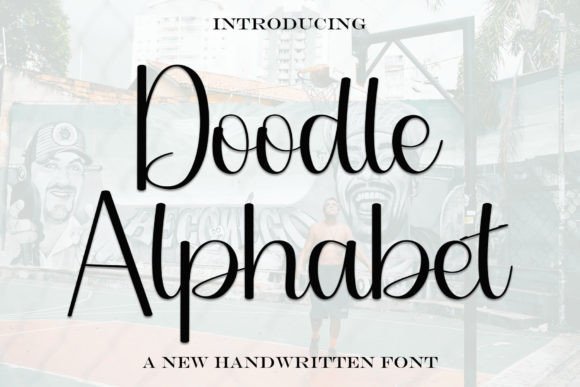
Have you ever stared at a blank page, feeling like your next design project is just out of reach? You’ve got a great idea, but the perfect font to bring it to life is nowhere to be found. Well, search no more! Introducing the Doodle Alphabet Font, a trendy handwritten font that’s sure to elevate your designs and leave a lasting impression.
This beautiful font is inspired by timeless classic calligraphy, with a contemporary twist that’s sure to add a touch of elegance to any project. Whether you’re a seasoned designer or just starting out, the Doodle Alphabet Font is a valuable tool that will help you create stunning visuals that capture the essence of your brand.
Doodle Alphabet Font Key Features
- Unique Hand-Drawn Style: The Doodle Alphabet Font features a playful, hand-drawn style that adds a personal touch to any design project.
- Multi-Lingual Support: Includes a wide range of languages, including Latin, Cyrillic, and Greek alphabets, making it suitable for international projects.
- 300+ Characters: Includes a vast character set, including uppercase and lowercase letters, numbers, and special characters, as well as a range of punctuation marks.
- Perfect for Children’s Books and Educational Materials: The Doodle Alphabet Font’s playful style and large character set make it an ideal choice for children’s books, educational materials, and other projects that require a fun and engaging design.
Doodle Alphabet Font Review
Overall, I was excited to dive into the Doodle Alphabet Font, but my experience was a mixed bag.
- Hand-drawn charm: The font’s whimsical, hand-drawn style is perfect for creating a playful, childlike atmosphere.
- Unique character set: The font comes with a comprehensive set of characters, including uppercase and lowercase letters, numbers, and punctuation marks.
- Limited legibility: While the font is visually appealing, its irregular letterforms can make it challenging to read, especially in smaller font sizes.
- No clear guidelines: The font’s usage guidelines are unclear, making it difficult to determine the optimal font size, line height, and spacing.
- Lack of font variations: While the font is available in various formats, there are no additional style variations or weights to choose from.
While the Doodle Alphabet Font has its charms, its limitations hold it back from being a truly versatile and effective font choice. It’s best suited for projects where a playful, whimsical atmosphere is essential, but not for more formal or legible text-based designs.
For best results, use the Doodle Alphabet Font in conjunction with a bold or playful background.
Experiment with different font sizes and color combinations to create unique and eye-catching designs.
The Doodle Alphabet Font is ideal for:
- Children’s book illustrations and educational materials.
- Party invitations and decorations.
- Graphic design projects requiring a playful and whimsical touch.